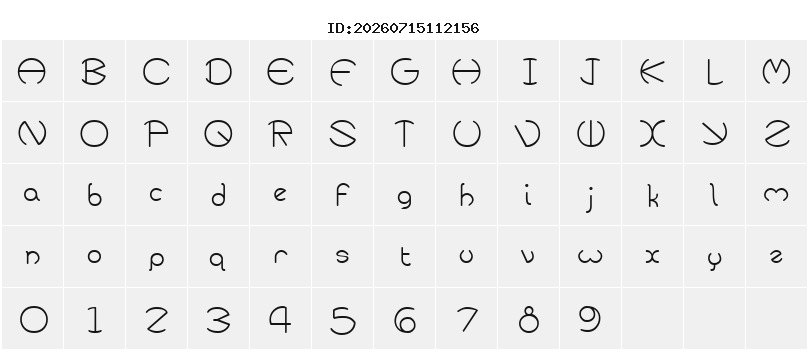
ZirkleOne Preview
• Font Name: ZirkleOne
• Full Font Name: ZirkleOne Regular
• PostScript Name: ZirkleOne Regular
About ZirkleOne.ttf
ZirkleOne.ttf is a modern, elegant sans-serif font designed for ultimate readability and visual harmony. Perfect for branding, headlines, web design, and print materials.